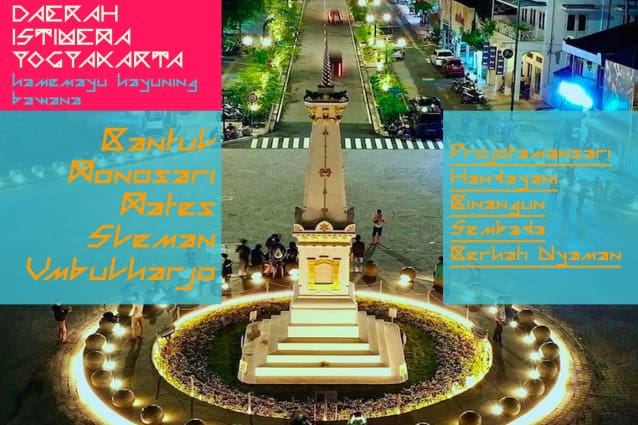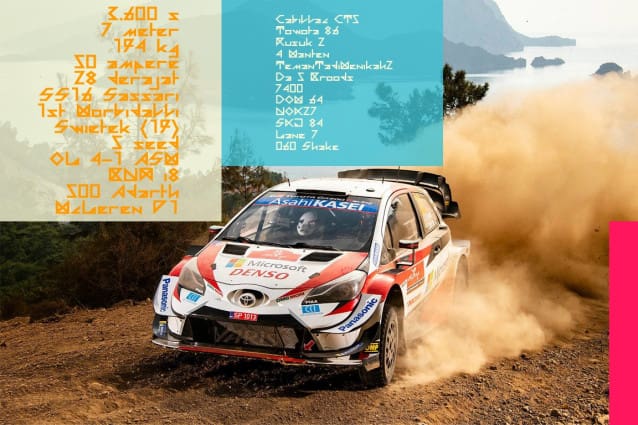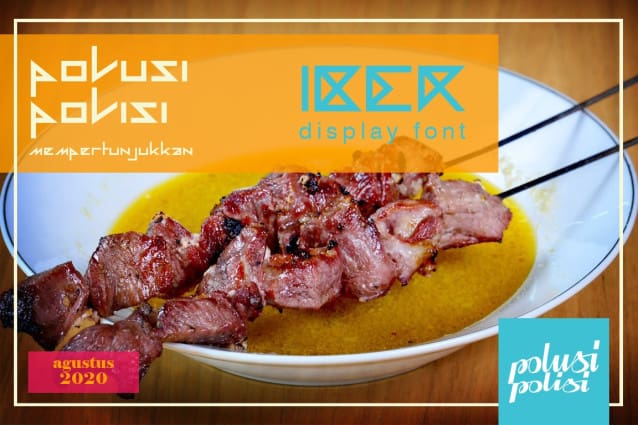
Iber Display Font
Iber Display Font is a display font that accentuates geometric lines, has a strong and firm impression. Iber is perfect for use on decals, logo design, media, merchandise, stickers, t shirt designs, etc.